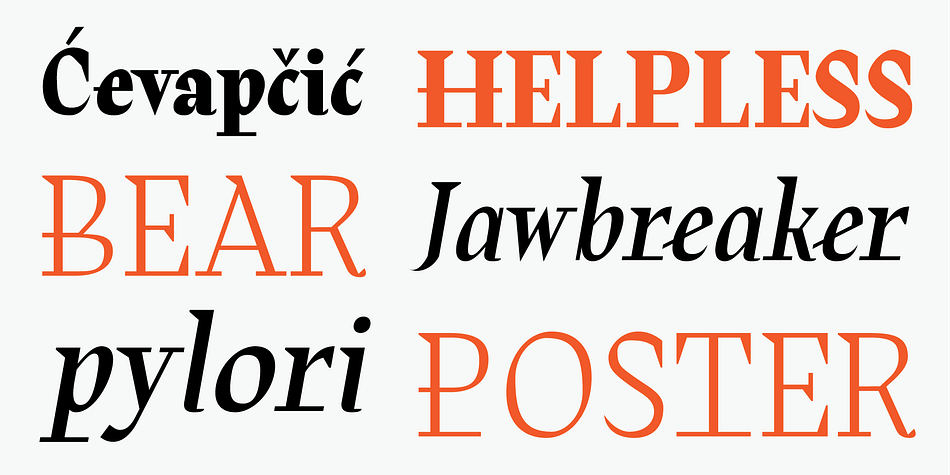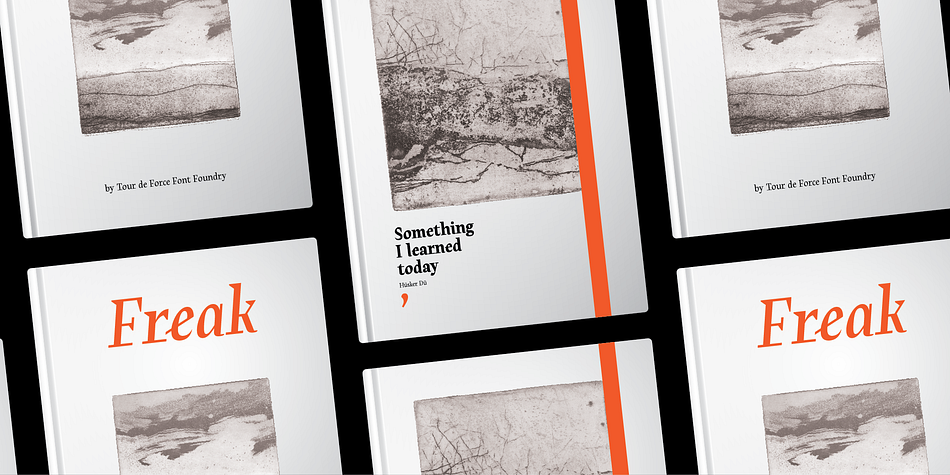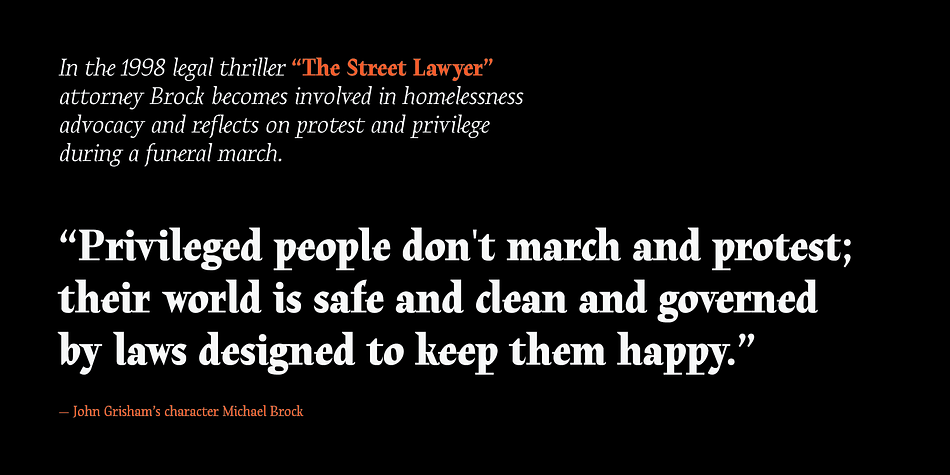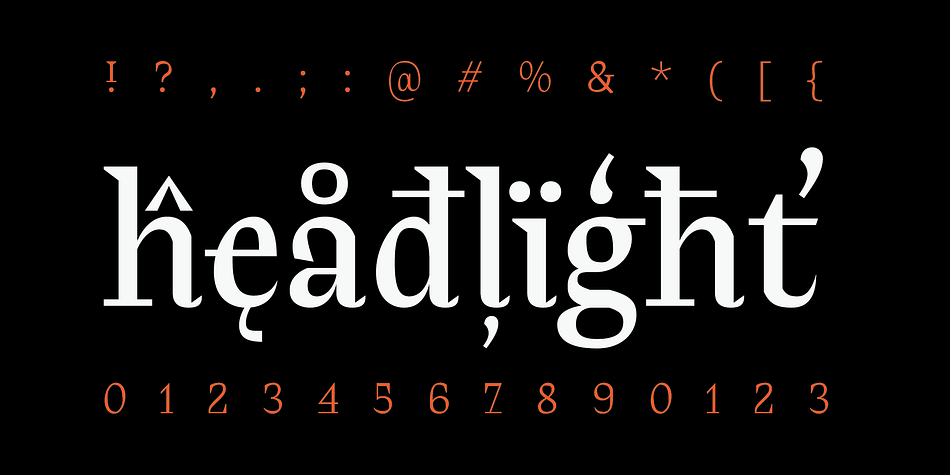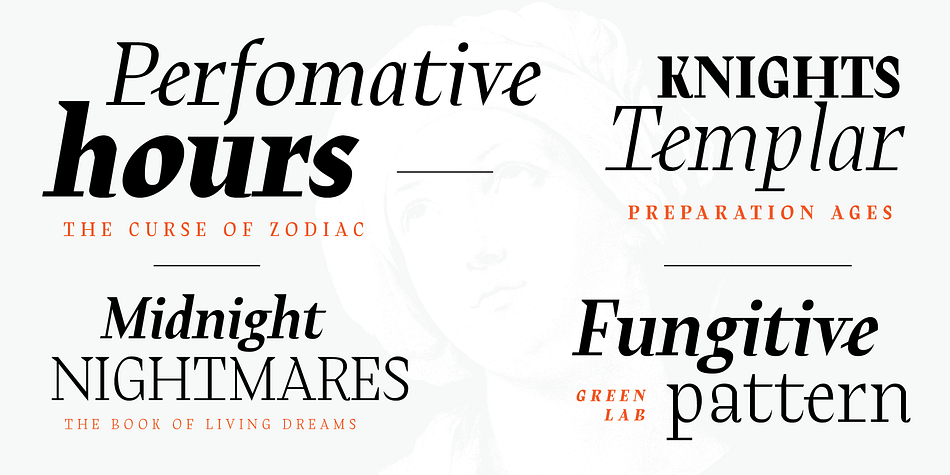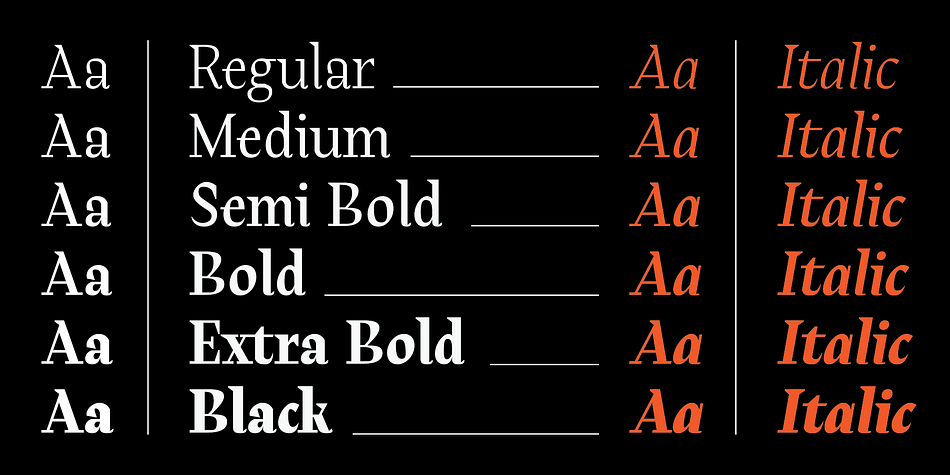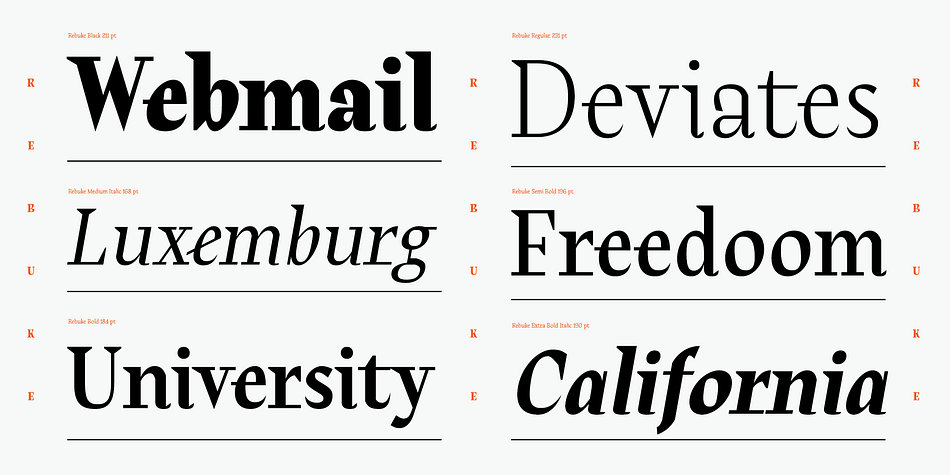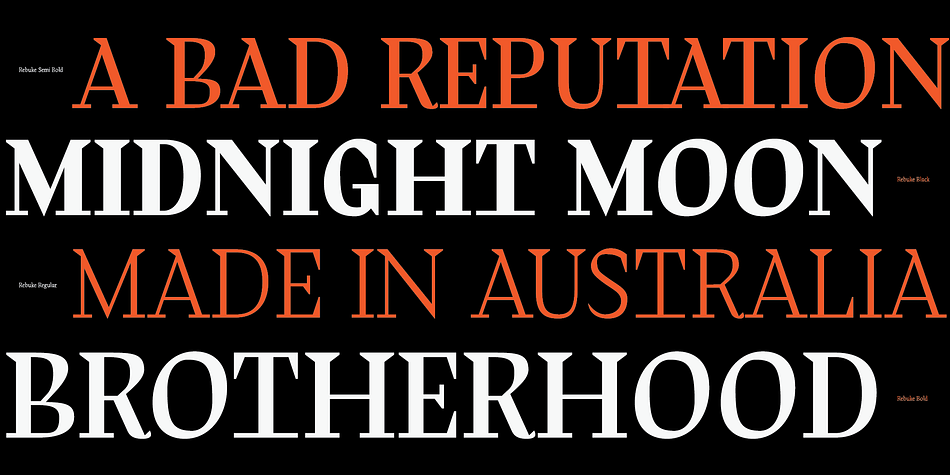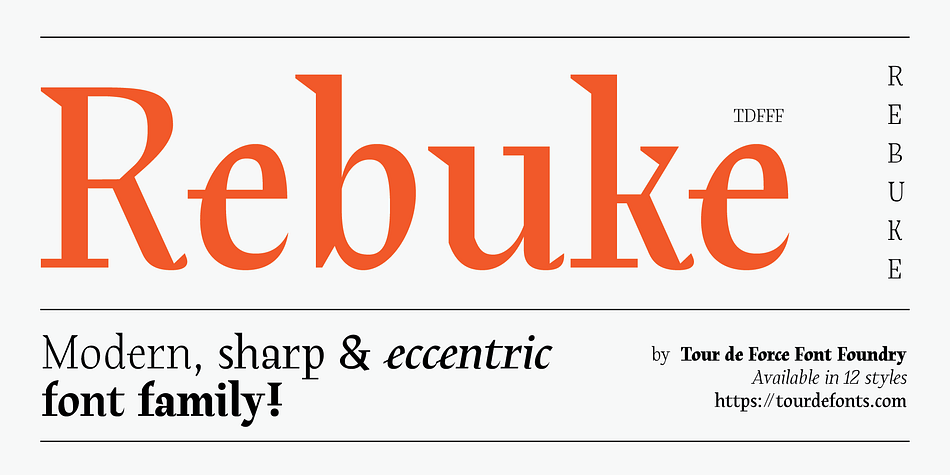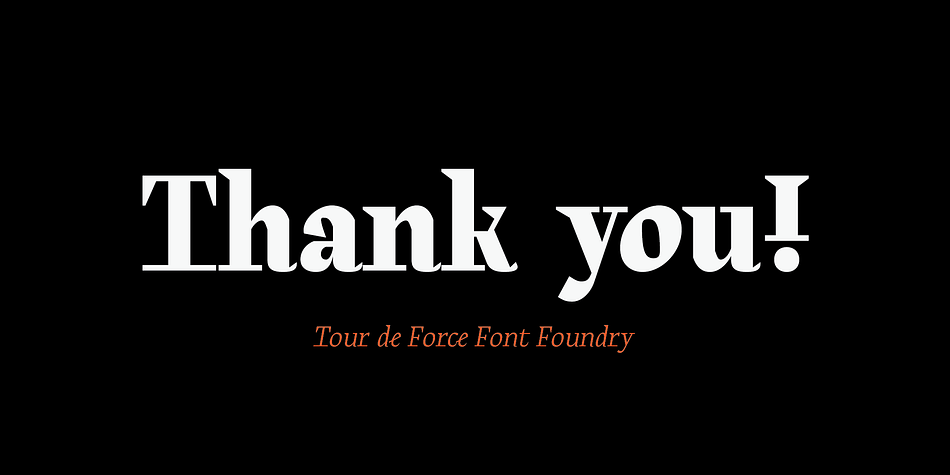
Rebuke
Designed by Dusan Jelesijevic, Rebuke is a serif font family. This typeface has twelve styles and was published by Tour de Force Font Foundry.
Rebuke is modern serif font family available in 12 styles – 6 weights and matching Italics.
Design of Rebuke combines several different elements merged into one – lower serifs from Didone category, upper triangular straight serifs, extended serifs that connects two neighbouring letters, calligraphic endings and vintage design spots; all combined together make Rebuke pretty distinctive and unique typeface.
Rebuke font family is perfect choice for modern editorial usage. It is legible in small sizes and well balanced for continuously reading.
Contains Initials as OpenType feature.